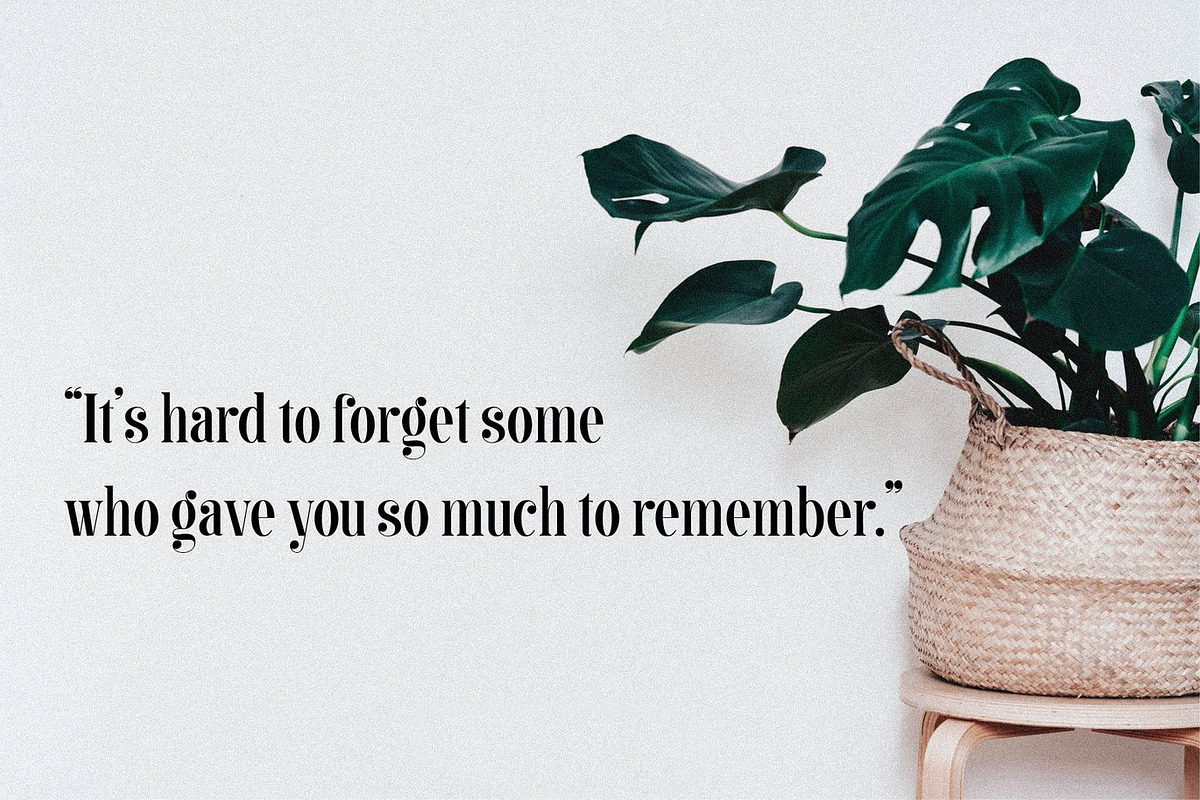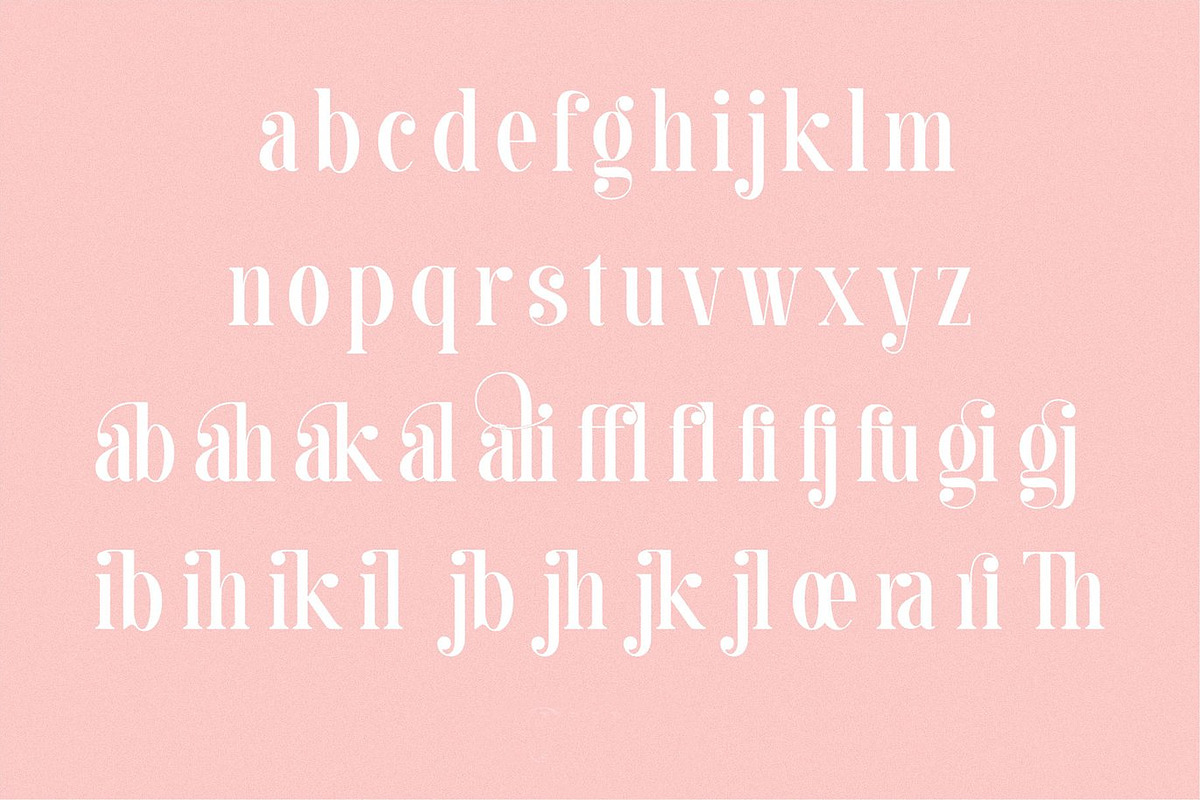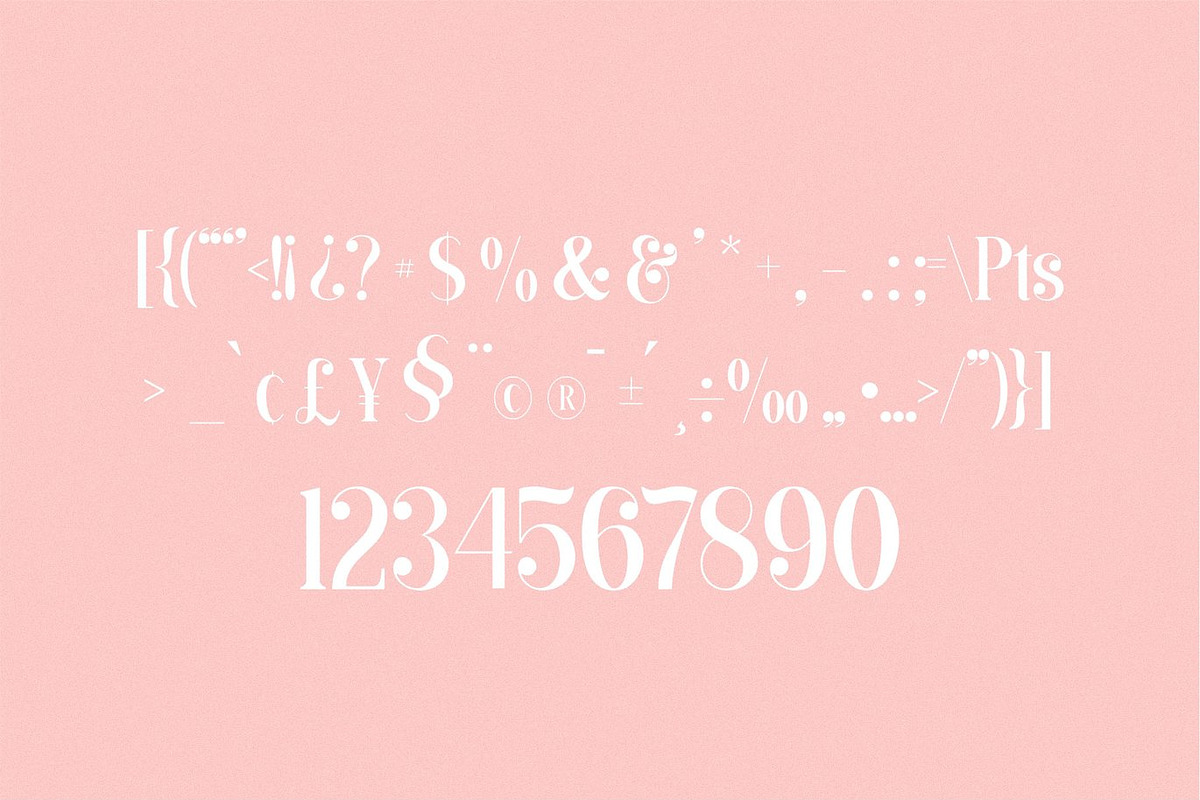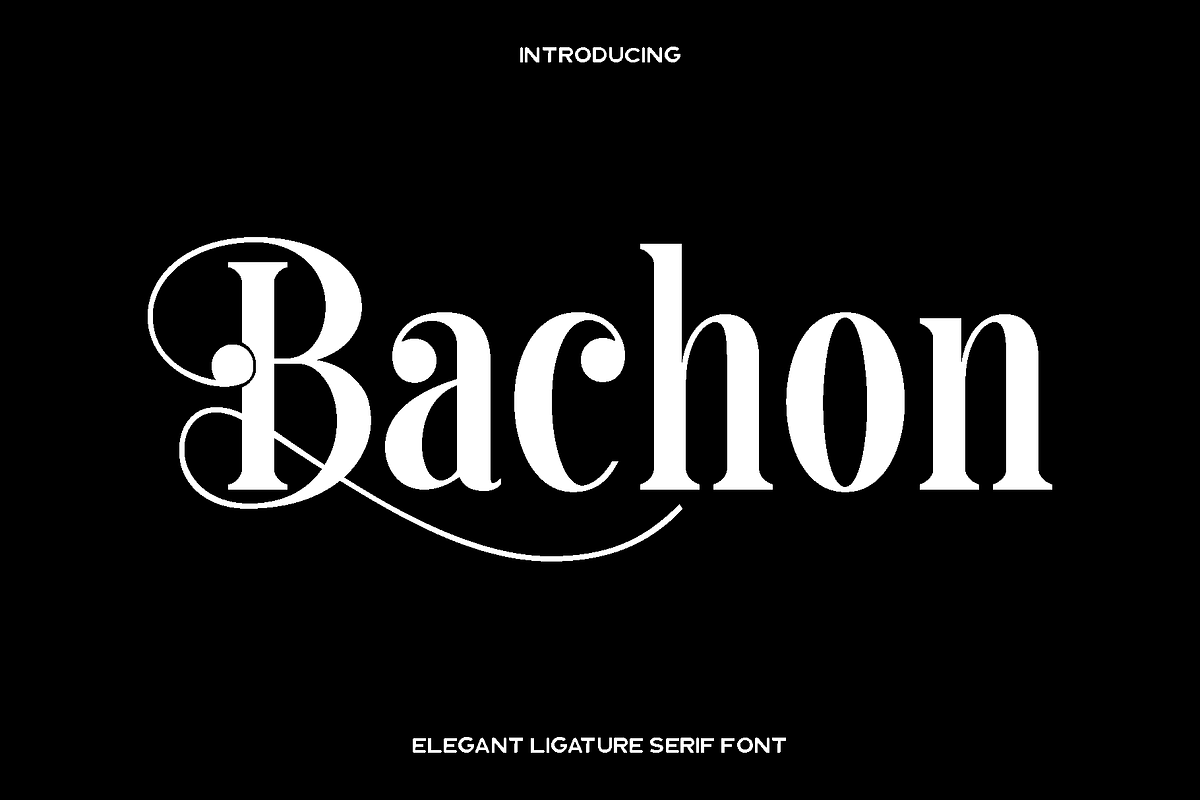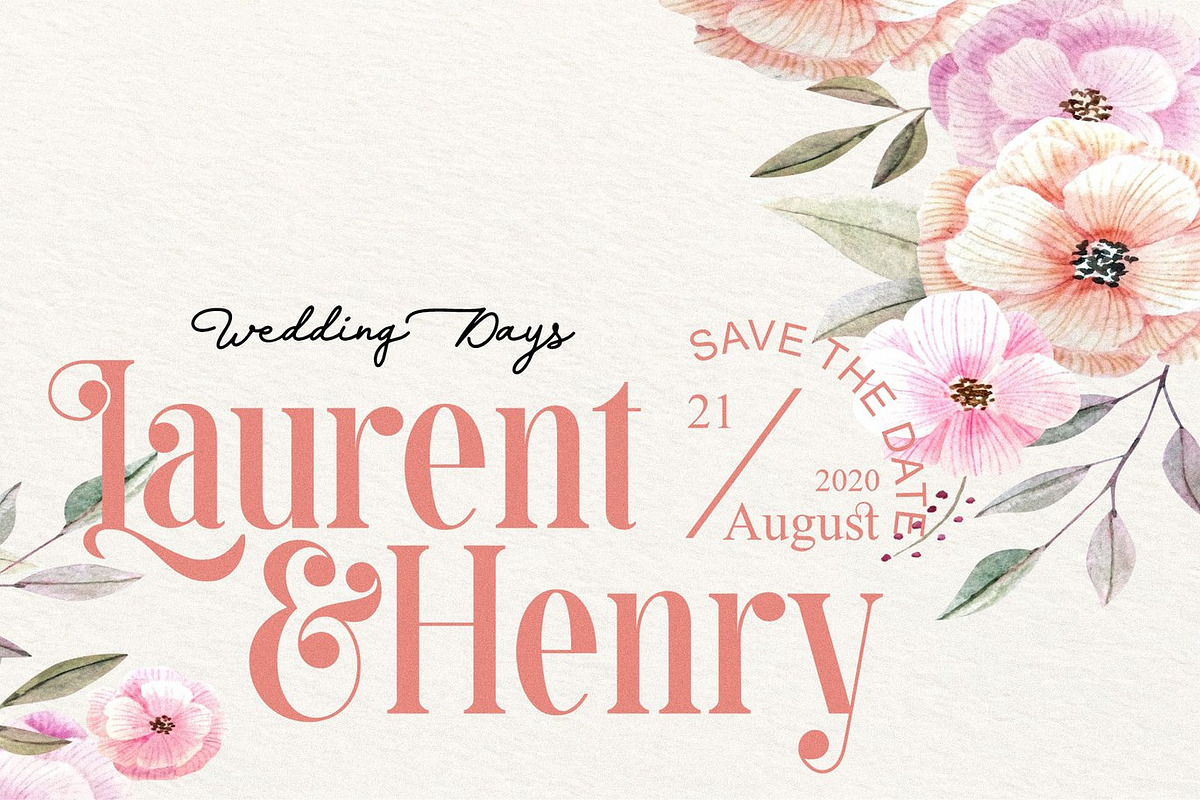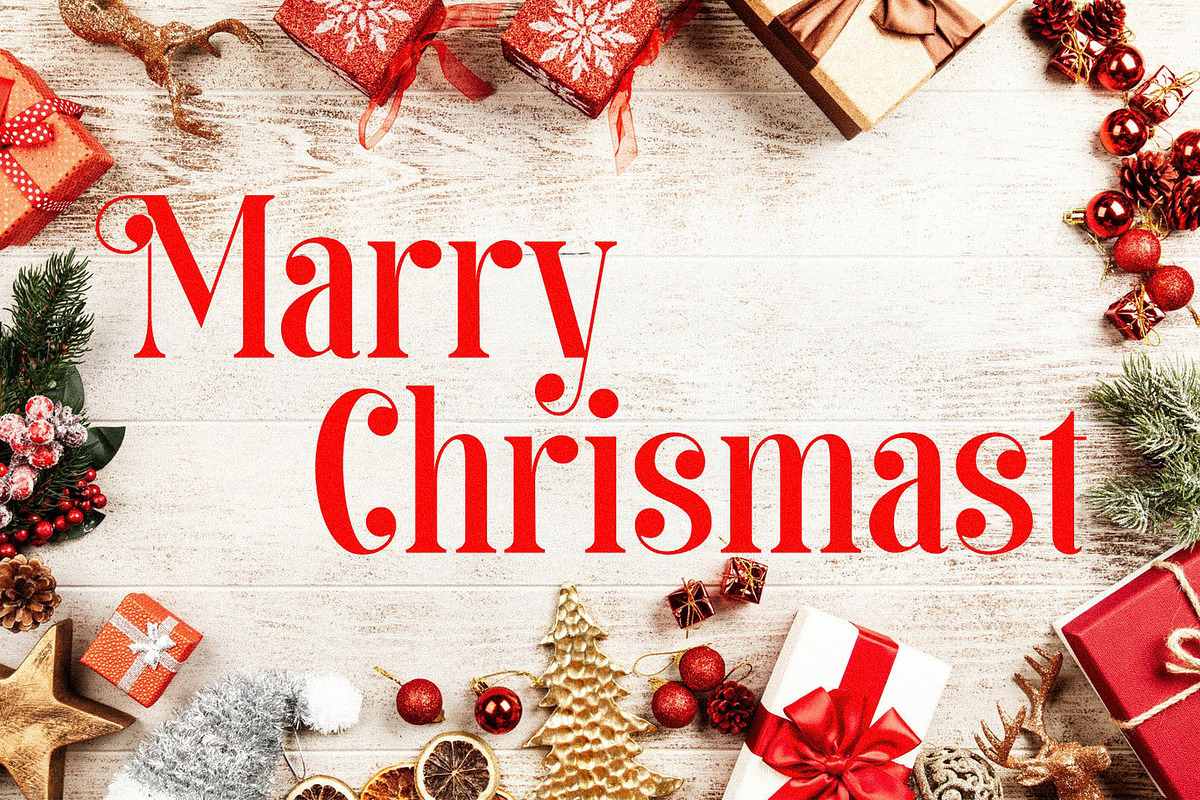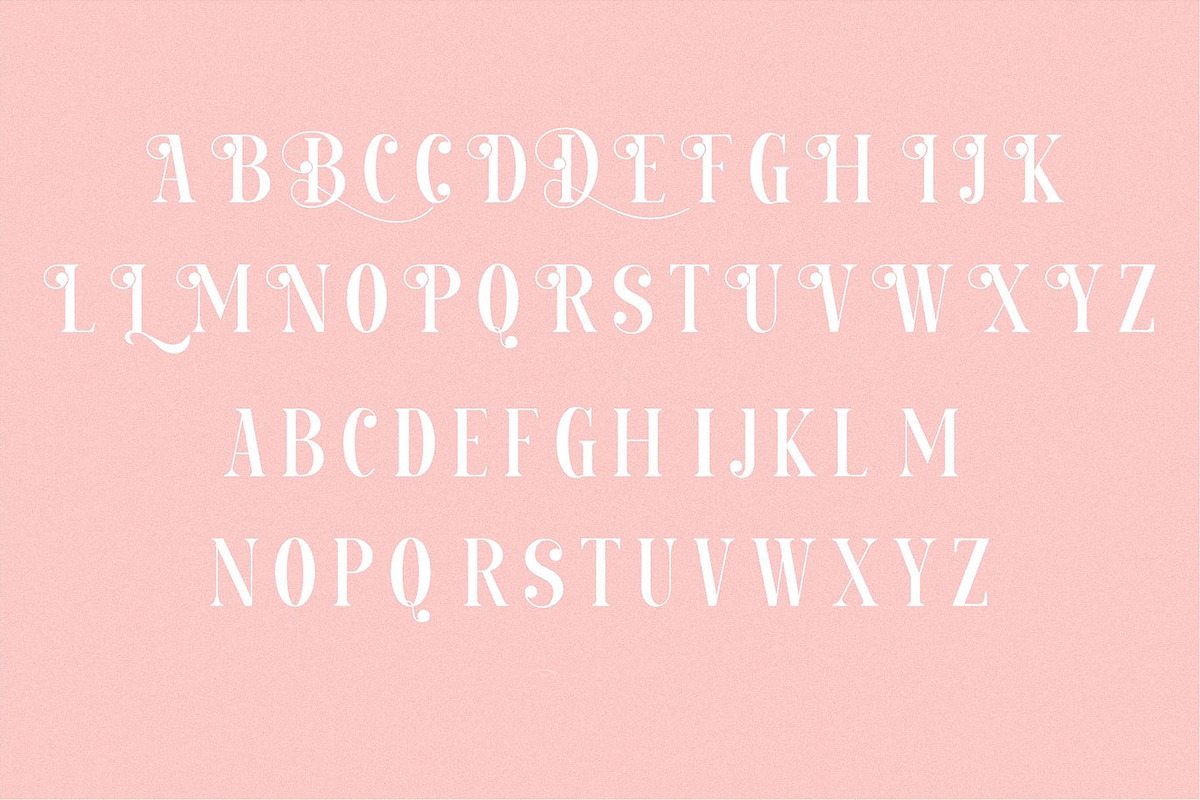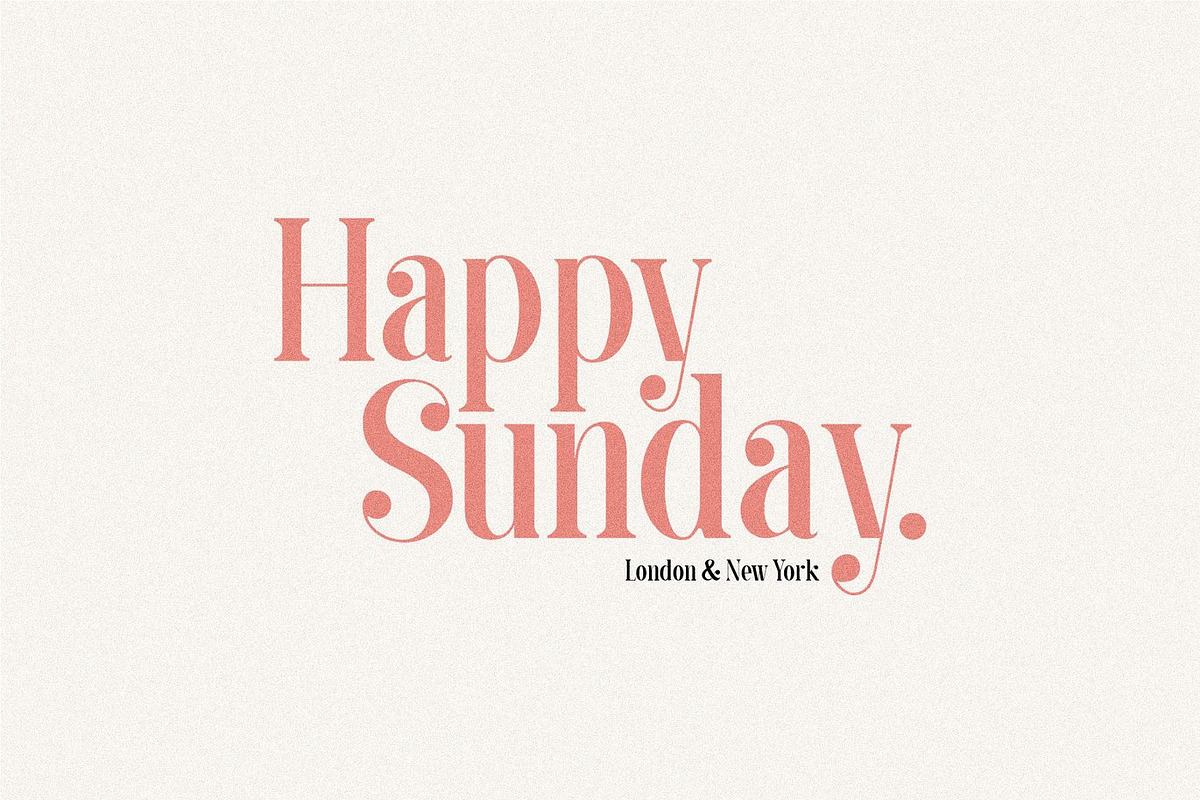
Bachon - Elegant Ligature Serif
Bachon is an elegant serif font designed to combine classic sophistication with modern display appeal. Its contrast letterforms create a striking visual presence, while the extra ligatures and alternate glyphs add a touch of refinement and artistic flair. Bachon brings personality and elegance to any project, making text feel intentional, stylish, and visually captivating.
Perfect for high-end branding, editorial design, luxury packaging, wedding invitations, and creative headlines, Bachon transforms ordinary text into a statement of elegance. Its versatile design ensures that it works beautifully across print and digital applications, giving designers the freedom to craft distinctive and memorable visuals.
Bachon is more than a font—it’s a tool for storytelling. Its graceful curves, harmonious proportions, and sophisticated ligatures allow for expressive typography that communicates quality and style. The font supports multiple languages, providing extensive versatility for international projects. Every detail has been thoughtfully designed to ensure your creative work exudes professionalism and artistic charm.
Bachon Elegant Ligature Serif Font Features:
• Elegant ligature and alternate characters
• Uppercase and lowercase letters
• Numbers, punctuation, and symbols
• OpenType features
• Multilingual support covering 50 plus languages
Bachon elevates your designs with timeless elegance and sophisticated charm, making it a must-have font for designers seeking style, versatility, and impact.